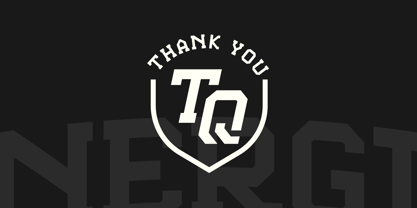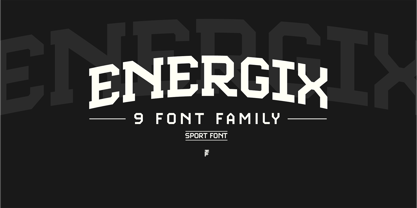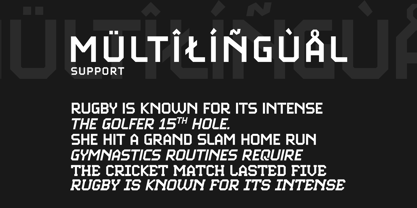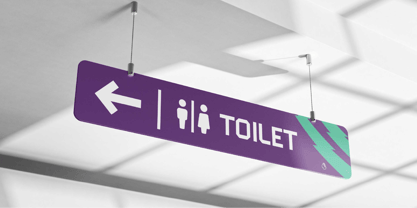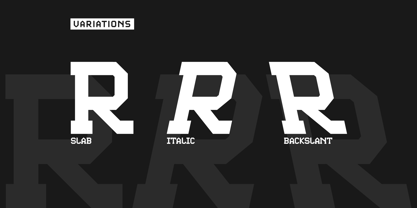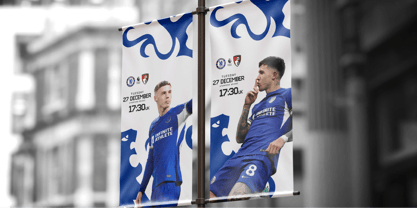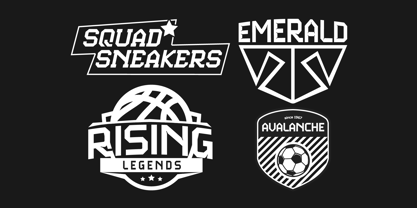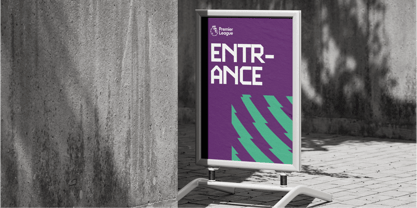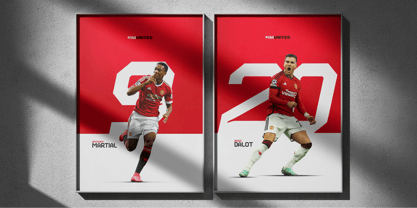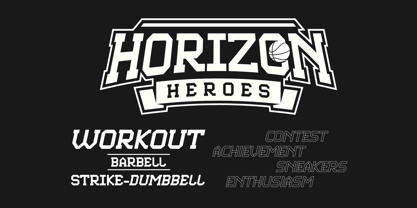
Energix
The Energix Font Family was designed by Adrian Syauqi and published by Firstype Studio. Energix contains 9 styles and family package options. More about this family
Unleash the Power of Sports Typography
Step into the world of athletic excellence and elevate your designs with Energix, a font that captures the spirit and intensity of sports. With its bold lines and dynamic design, Energix epitomizes strength and energy, making it the perfect choice for those seeking a font that embodies the essence of competition and performance.
Featuring nine distinct styles, including regular, italic, bold, and extended variations, Energix offers unparalleled versatility for your design endeavors. Each style comes with various alternative typefaces, allowing you to customize and experiment to your heart's content.
Whether you're designing for digital platforms or print media, Energix is your ultimate companion. Its robust charm and sports-inspired elements add a touch of vigor to any project, making it particularly well-suited for sports posters, team jerseys, and athletic event branding.